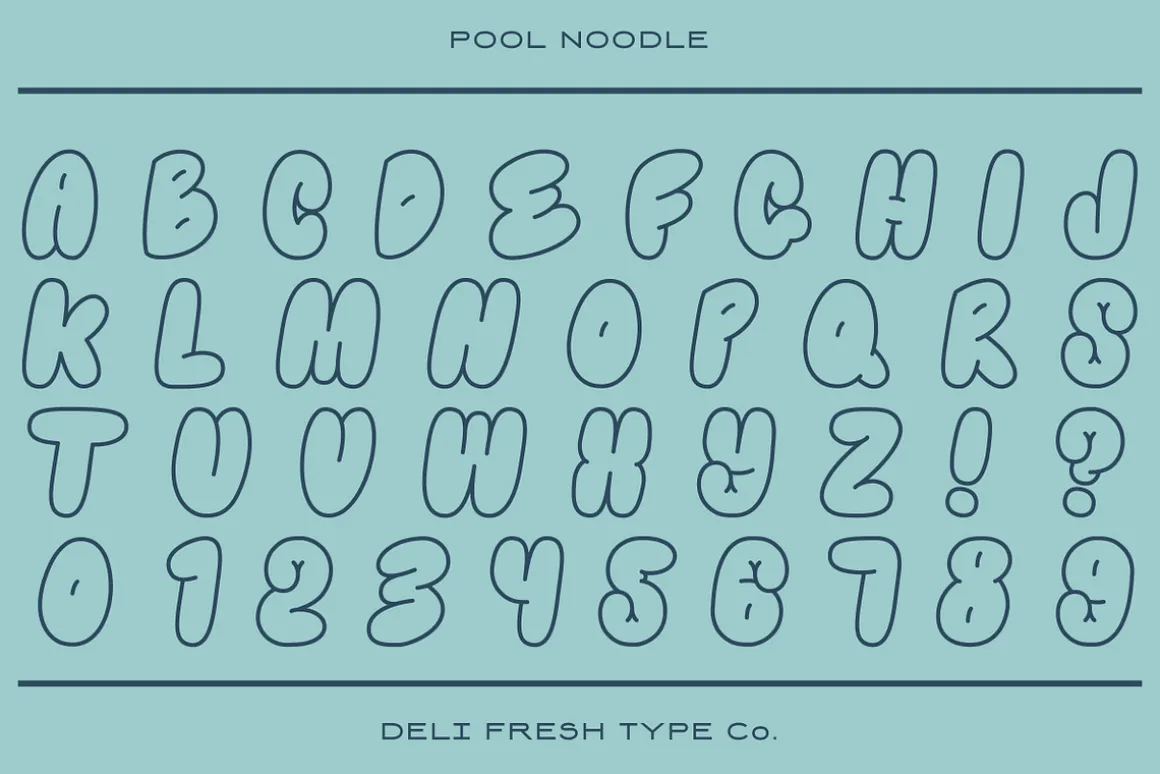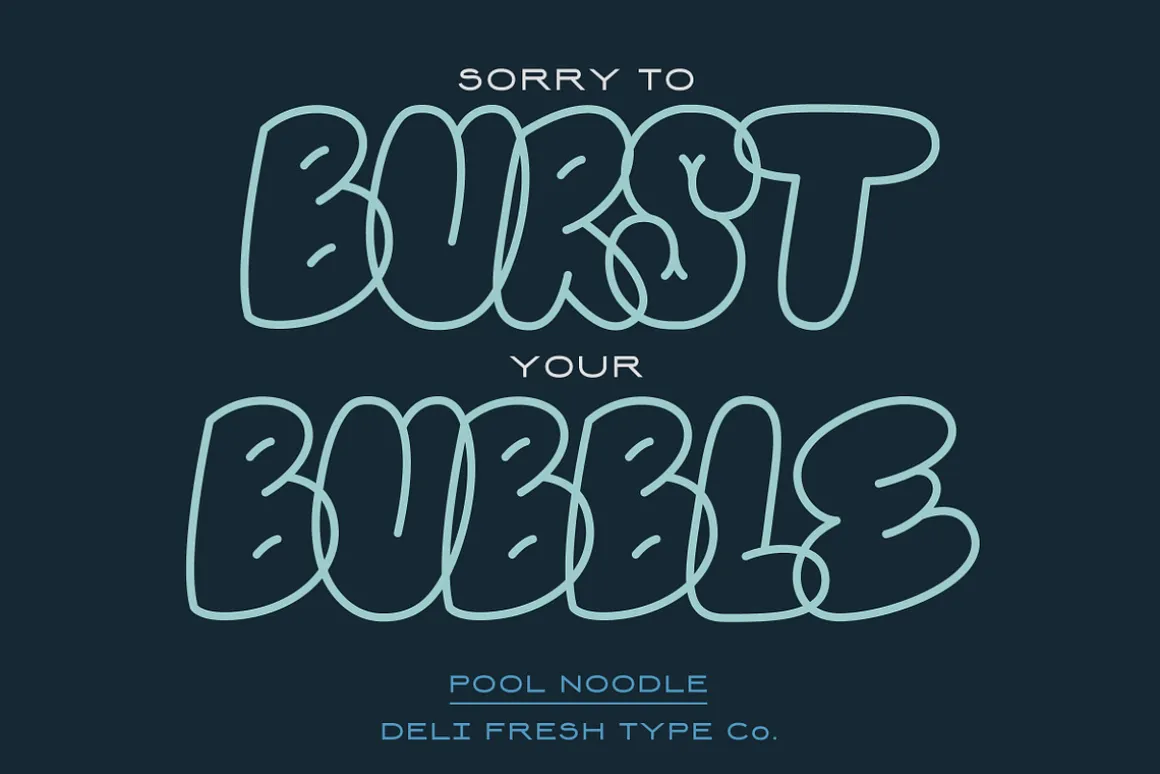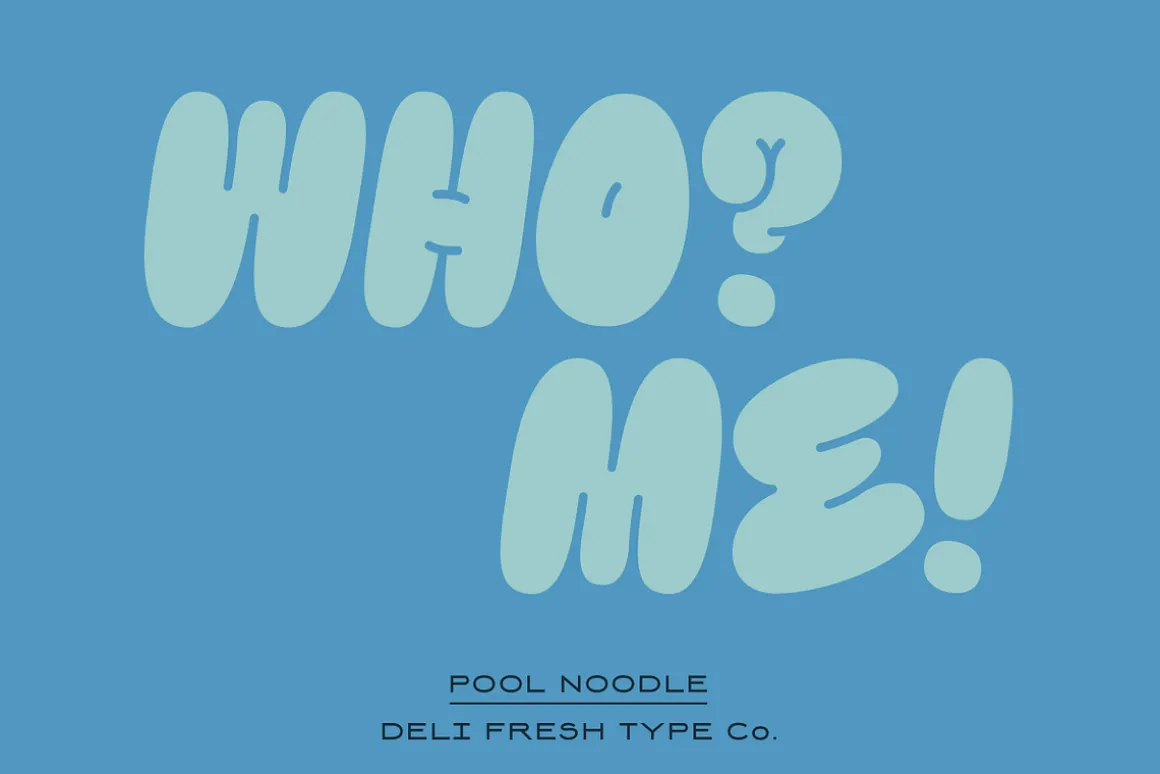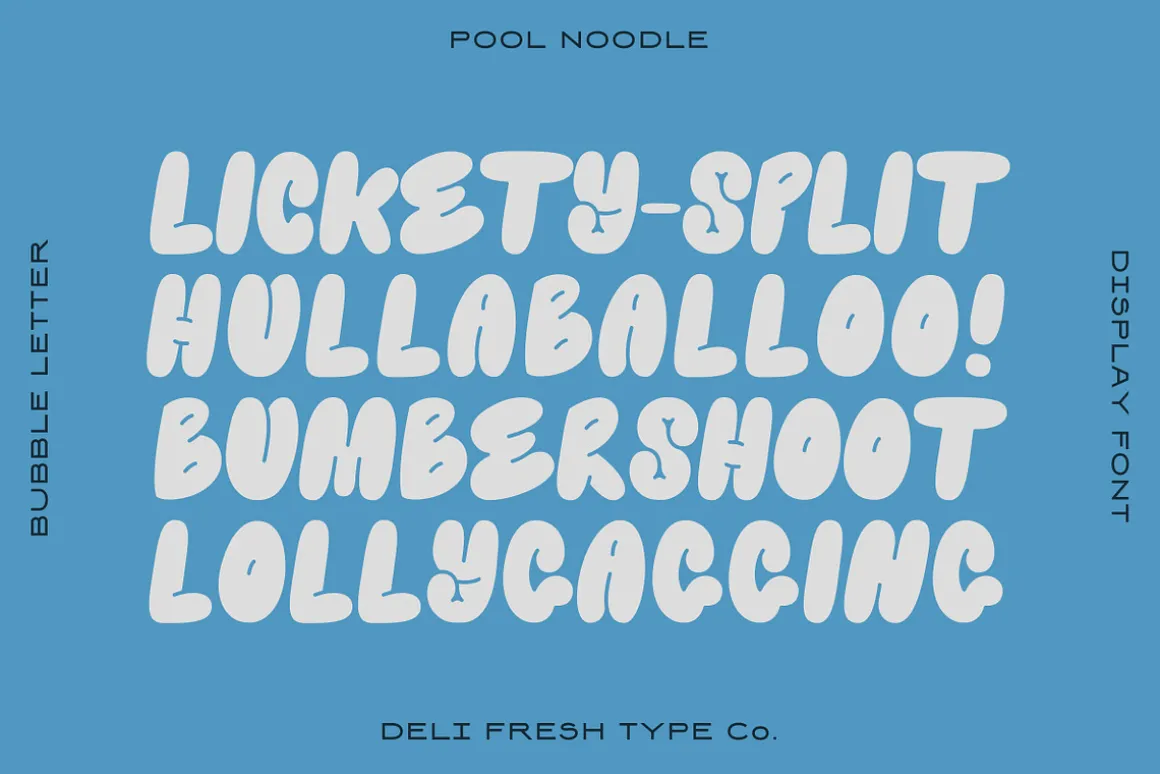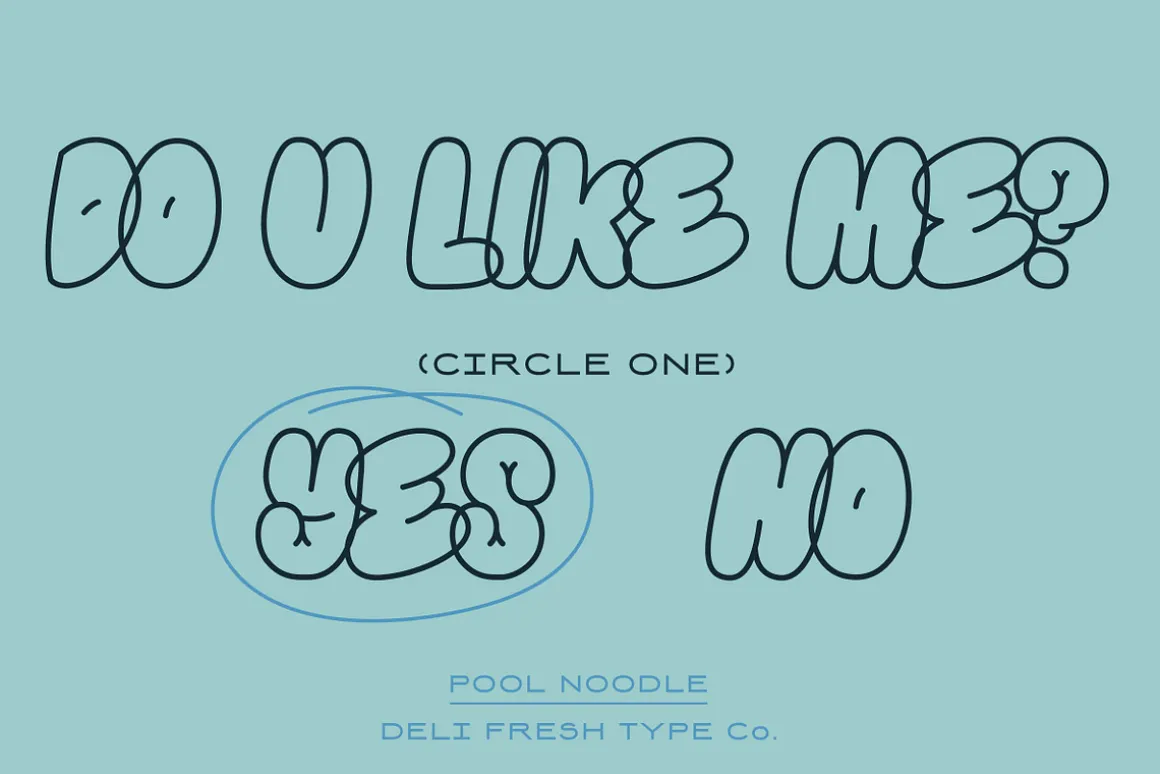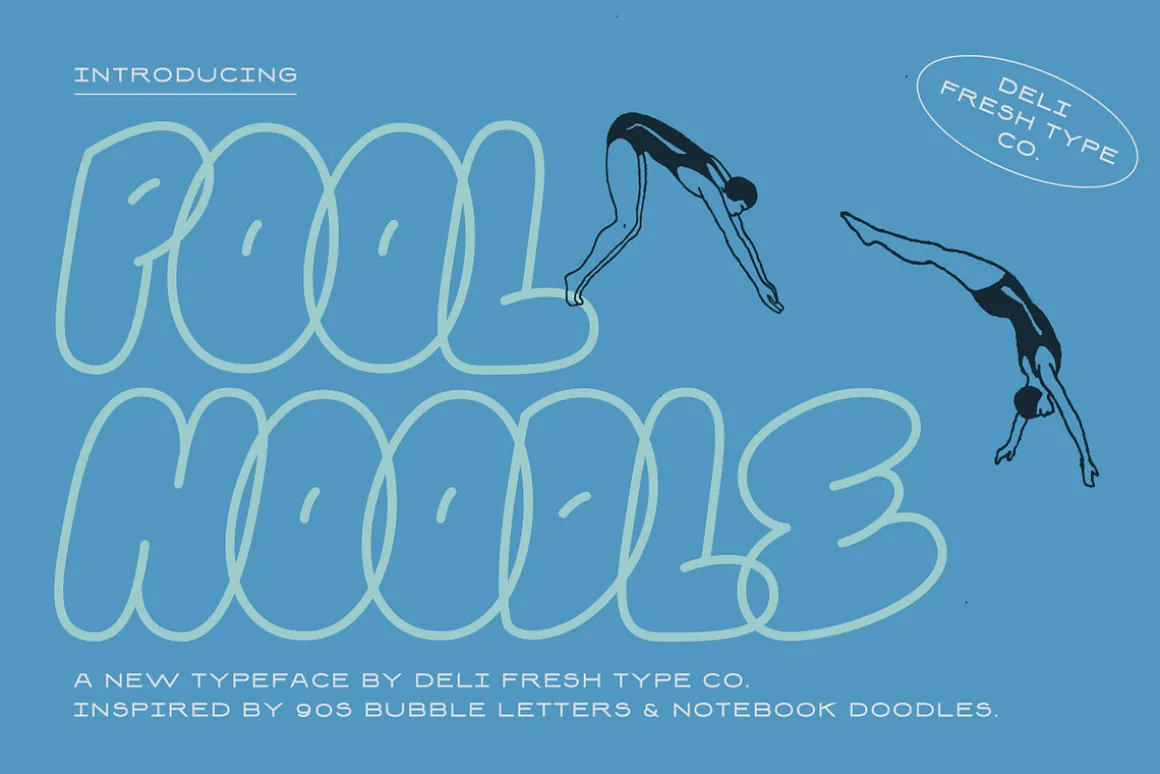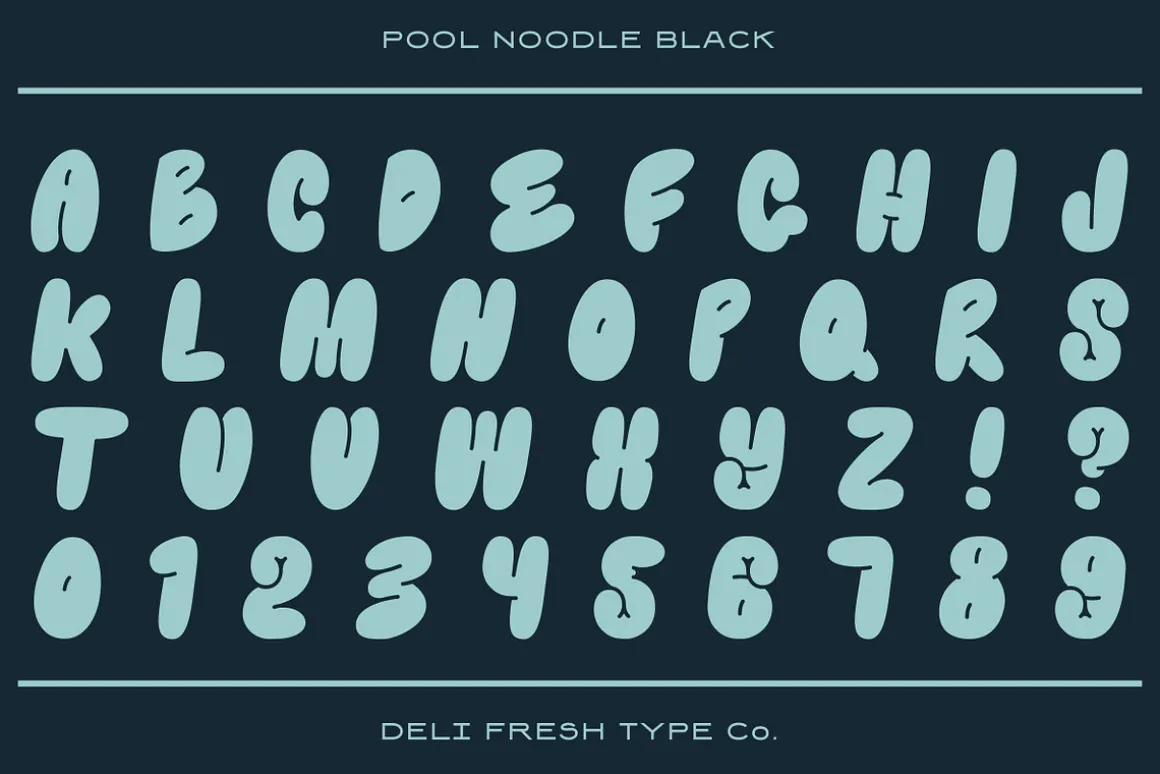
A new typeface inspired by 90s bubble letters and middle school notebook doodles.
Comes with upper-case letterforms, numbers, and a smattering of punctuation and special characters.